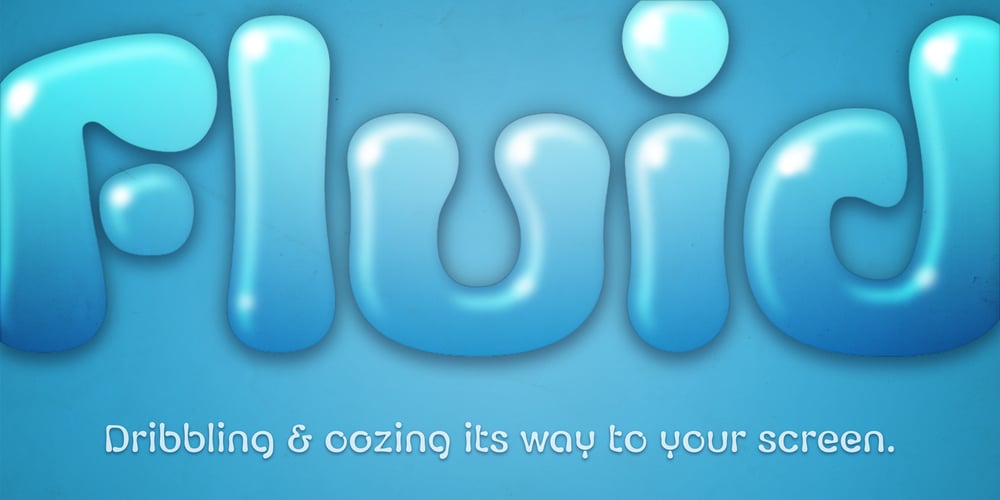
Fluid Font Family was designed by Paulo Goode and published by Paulo Goode. Fluid contains 6 styles and family package options. This frivolous 6-font typeface was inspired by playing with my food one evening. I began to wonder what it would be like to draw a typeface with a pipette and liquid… the result is Fluid.A key feature are the contextual alternates that substitute an alternate second glyph when typing double letters, this gives a more natural feel to the resulting text.It’s a fun typeface from my back catalogue that was originally released in June 2018. Enjoy playing!